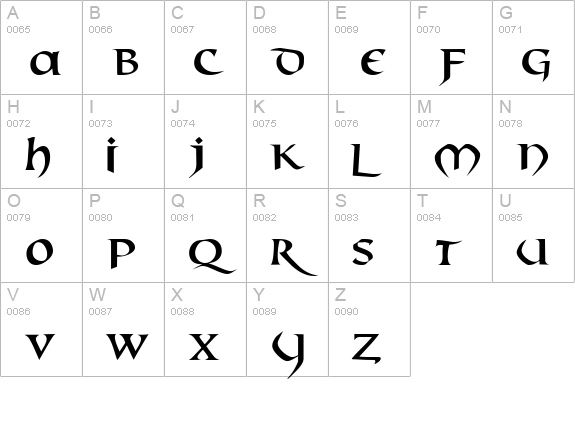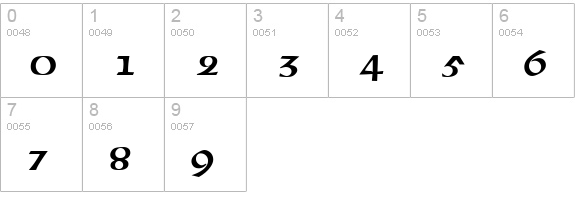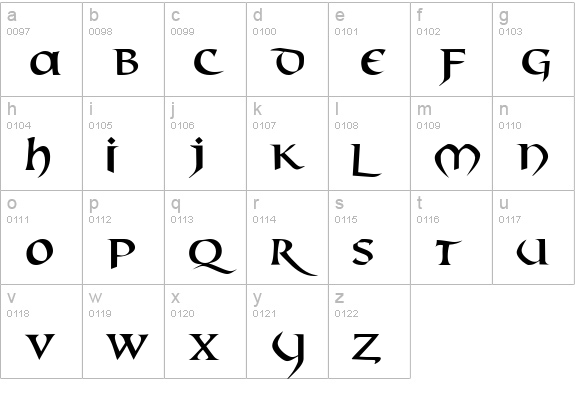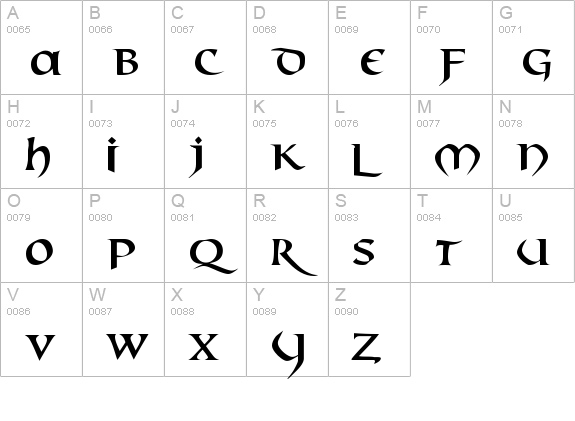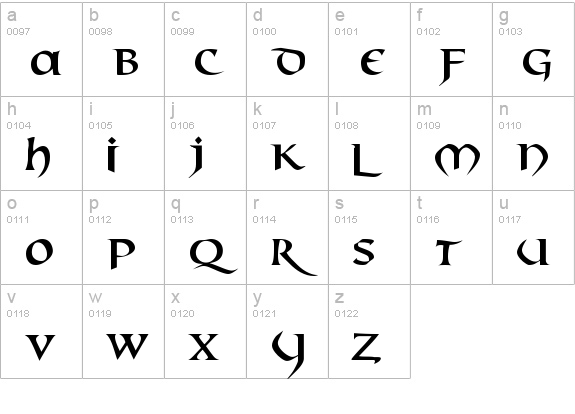
Mael Font Details
Introducing Mael, a captivating and versatile font that will add a touch of elegance and uniqueness to any design project. Mael combines modern and classic elements, resulting in a truly timeless typeface that is sure to captivate the attention of your audience. With its clean lines and stylish curves, Mael is perfect for a wide range of applications, from logos and branding to headlines and body text. Its balanced proportions and legible letterforms make it easily readable, even in smaller sizes. But what sets Mael apart is not just its stunning aesthetics, but also its accessibility. This remarkable font is freely available to download at FontsMarket.com, ensuring that designers and creatives of all levels have the opportunity to utilize its beauty and versatility in their work. Whether you're a professional designer looking for a fresh and modern typeface to elevate your projects or a beginner exploring the world of typography, Mael is the answer to your font needs. Its extensive character set includes uppercase and lowercase letters, numbers, punctuation marks, and special characters, providing you with endless possibilities to create eye-catching and engaging designs. So, don't miss out on the opportunity to enhance your designs with the captivating charm of Mael font. Download it for free at FontsMarket.com and let your creativity soar to new heights.